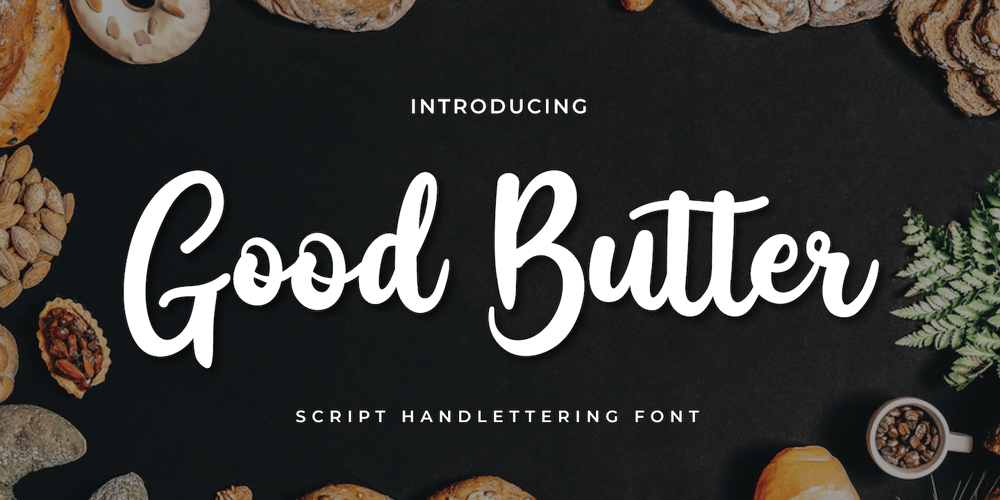
Good Butter Font Family was designed by Rozikan and published by Twinletter. Good Butter contains 1 styles and family package options. This font is created with original hand-drawn strokes for a relaxed, beautiful, and elegant feel, which is dazzling for a variety of food-themed design projects as well as other designs.also, beautiful abstract typography harmony in this font impression for a wide variety of design projects, including natural handwriting in digital form for designs, quote designs, for social media business designs, advertisements, trademarks, promotional banners, posts, posters, signatures, and all designs need handwriting or whatever design you want.This font is equipped with uppercase, lowercase, numbers, punctuation marks, swhases, and several variations on each character including multi-language.